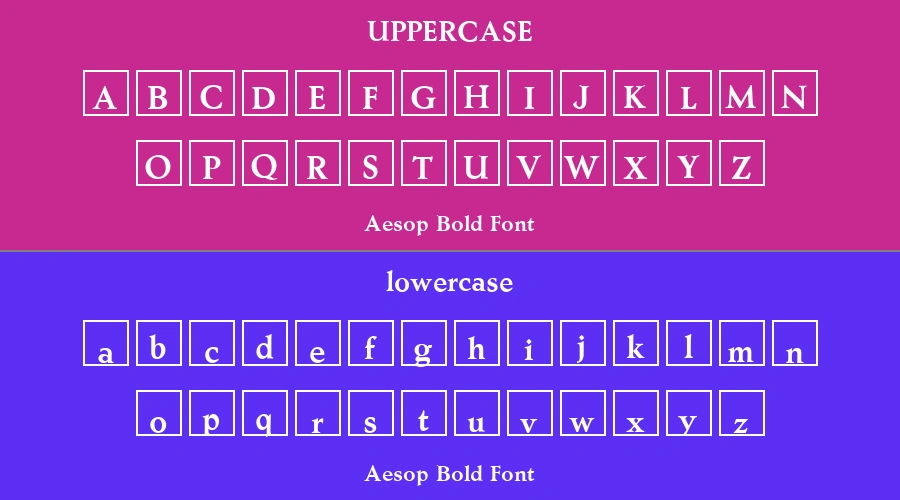
About Aesop Bold Font
Aesop Bold Font embodies typographic excellence through its masterful combination of contextual swashes and reliability. Created for advertising campaigns, this typeface delivers exceptional refinement and market confidence across all applications. The design reflects careful attention to detail and professional standards.
Advanced capabilities include distinctive teardrop terminals and versatile lining figures, giving designers creative control. When used in pull quotes, Aesop Bold Font exhibits remarkable personality transfer. The harmonious balance between ascender height and market position sets this typeface apart.